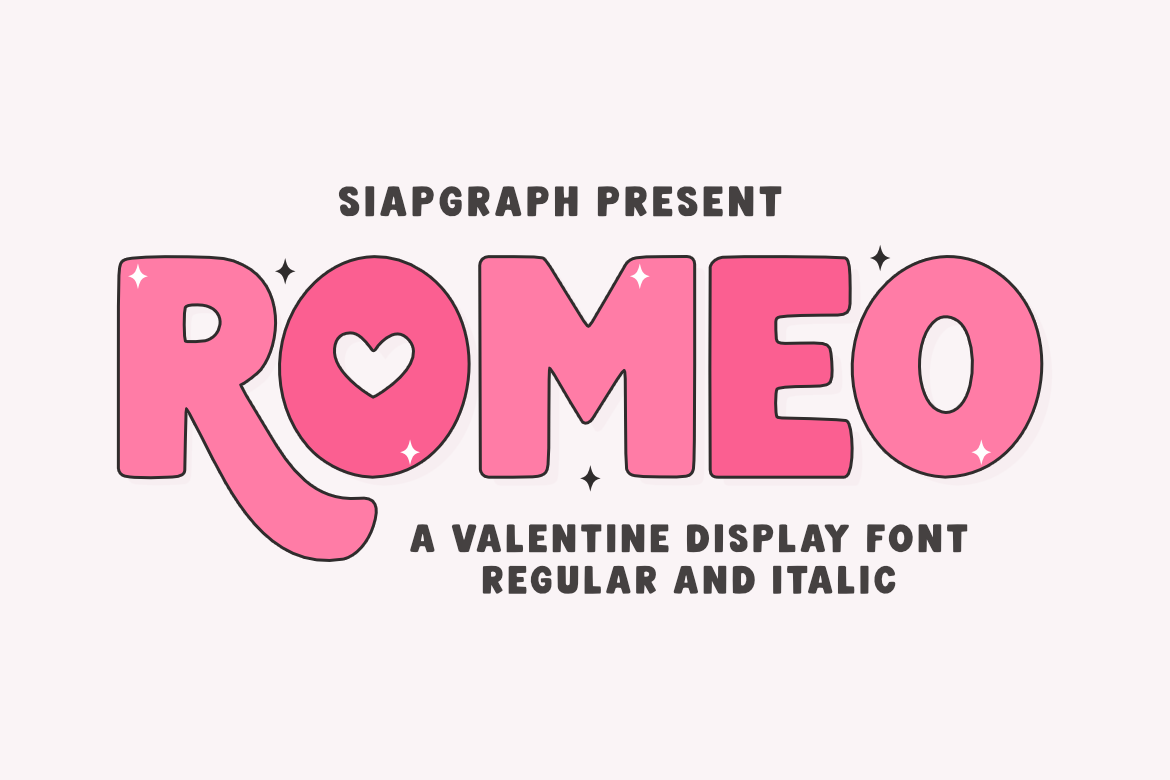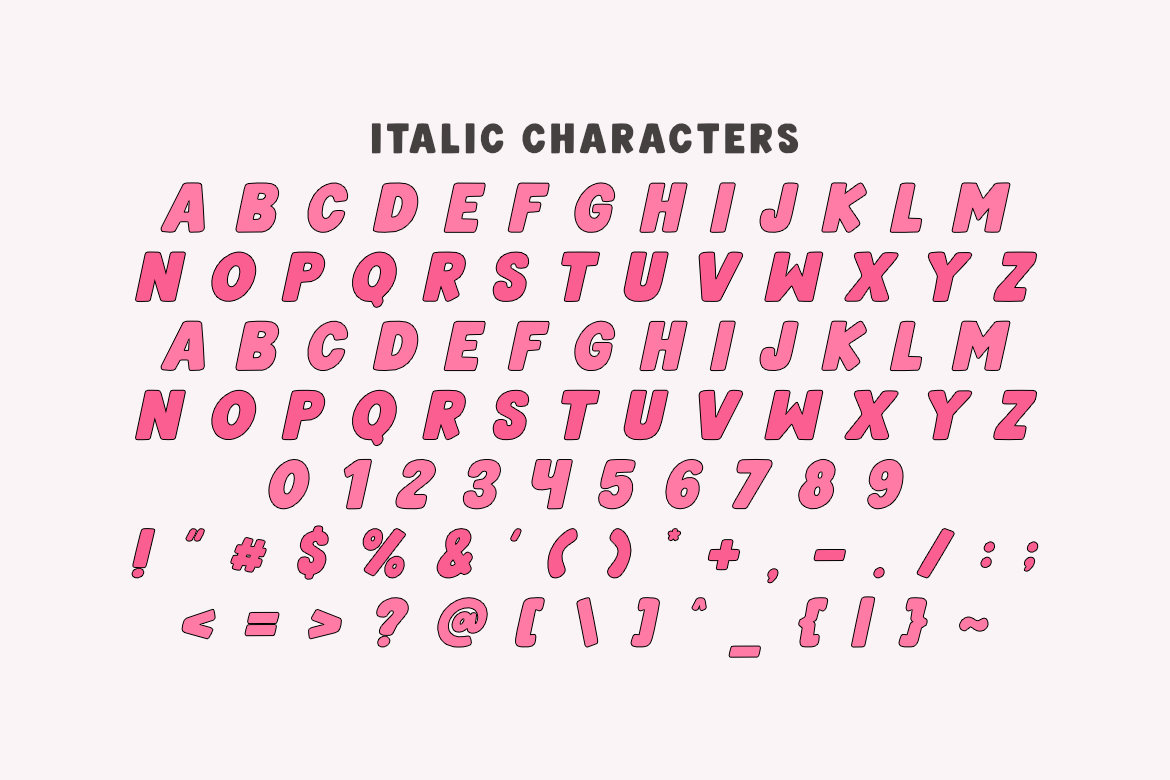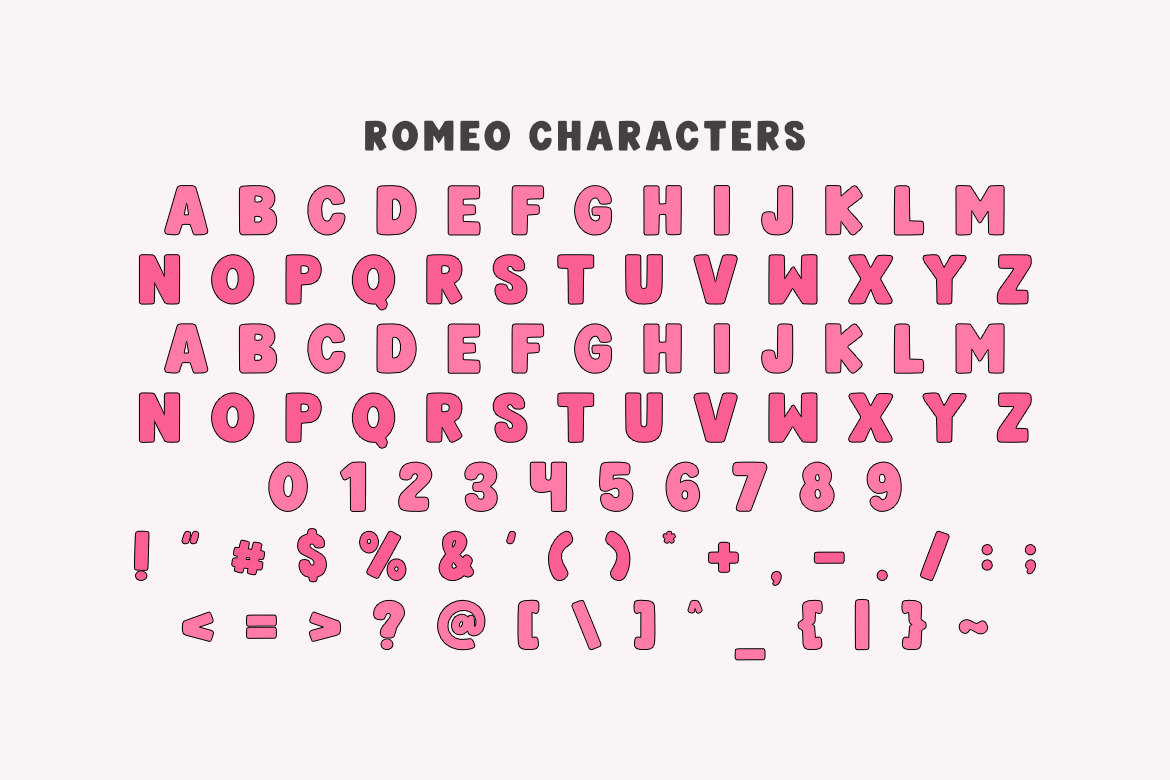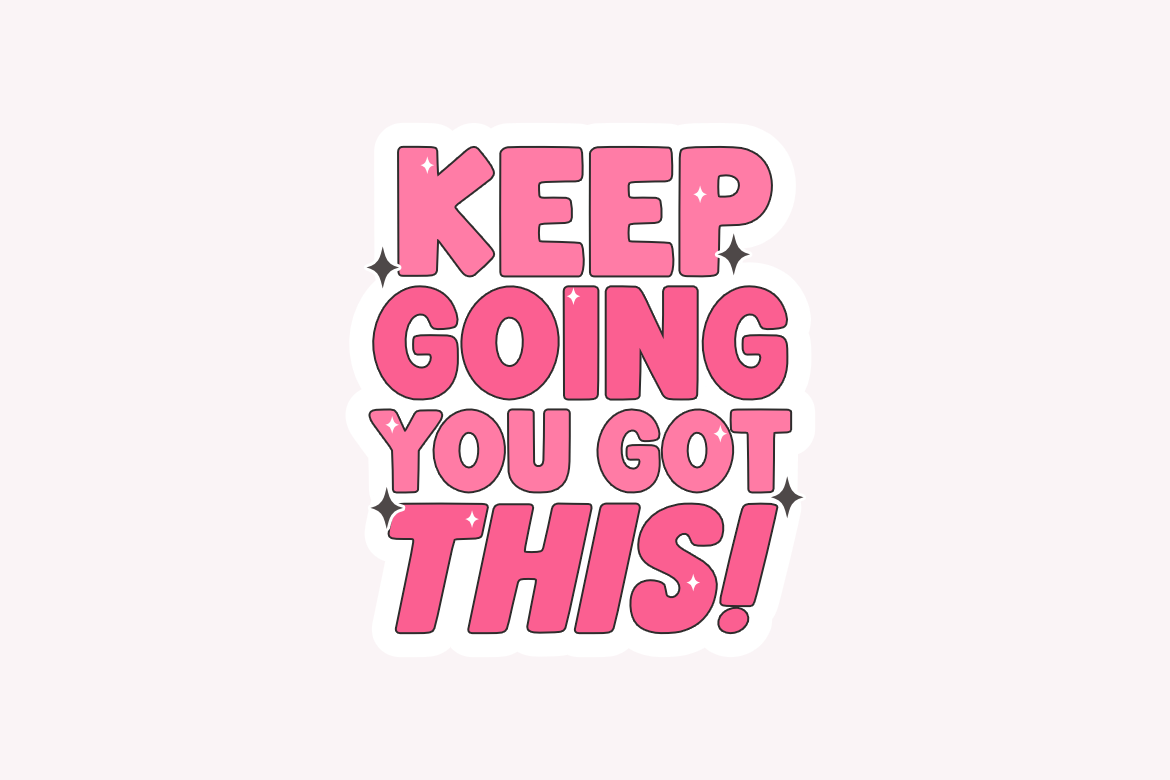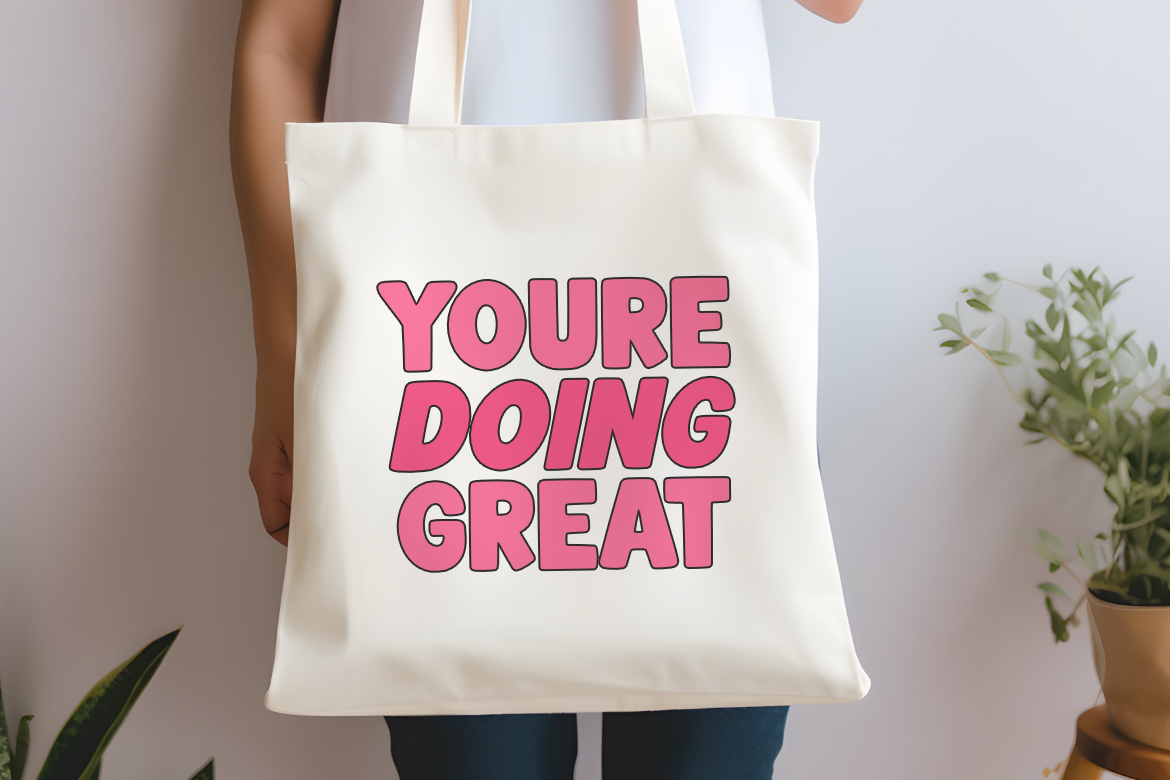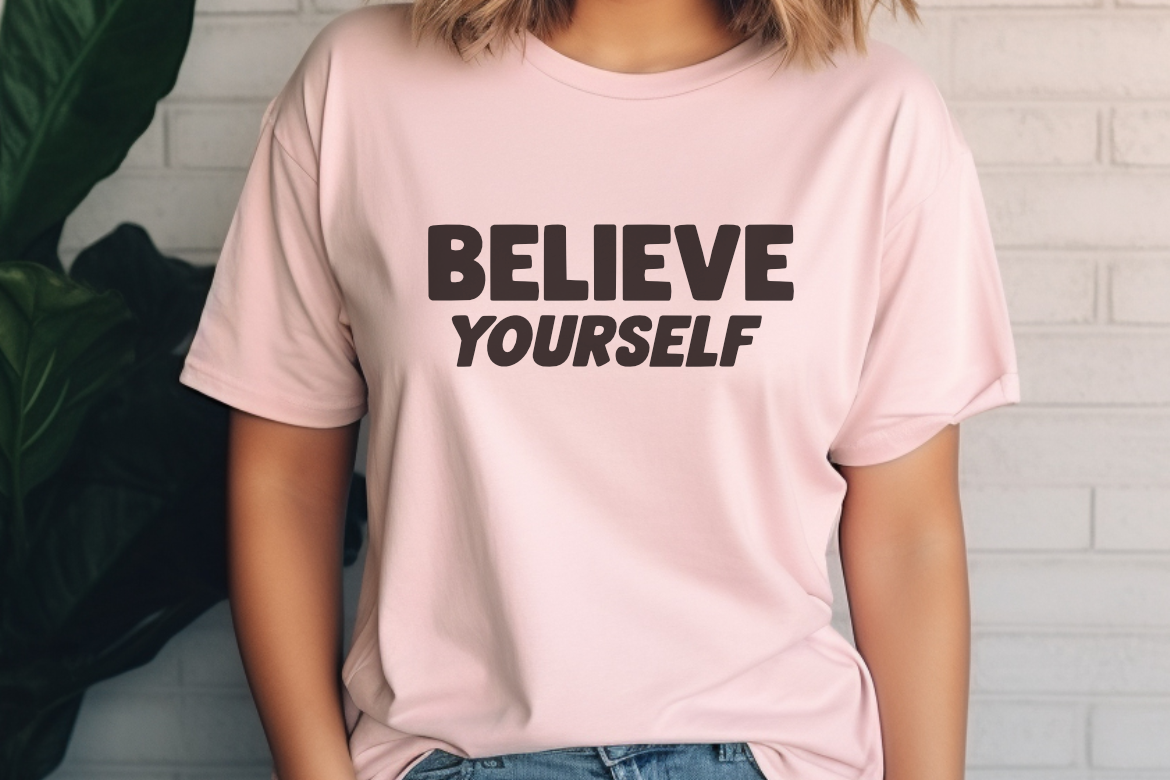
Romeo - Retro Quirky Valentine Font for Cricut and Sublimation
Bring your ideas to life with Romeo, a charming and cute retro quirky valentine display font that exudes playfulness! Its soft curves and bold appearance are perfect for creating eye-catching headlines, posters, social media graphics, and branding. Add a dreamy touch to your designs with this delightful font that’s both fun and versatile.